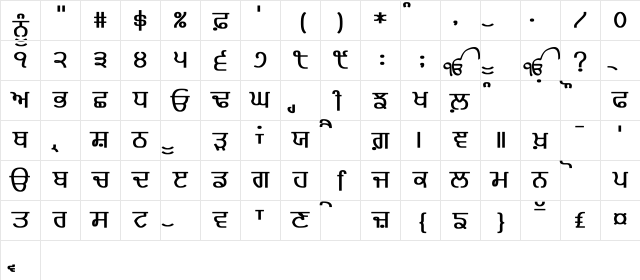
Bulara Demi-Bold is a composed and adaptable typeface that performs quietly and consistently across a wide range of design contexts. Its bold stroke weight gives it real presence on the page.